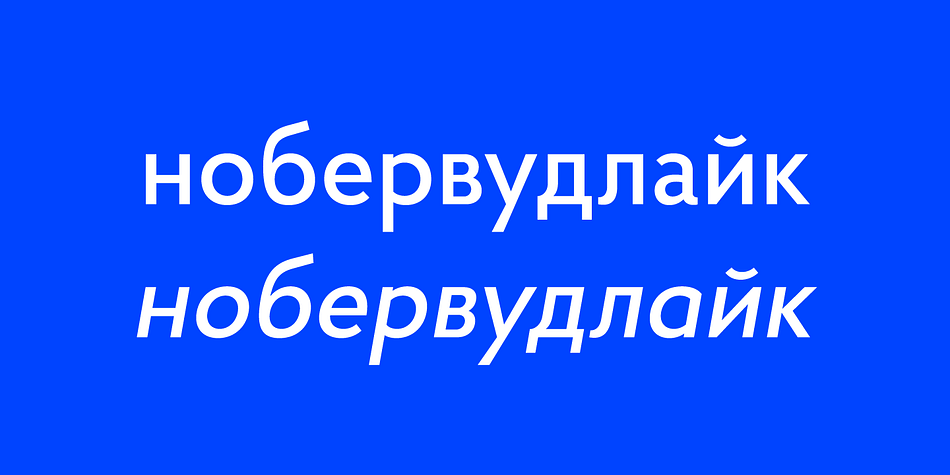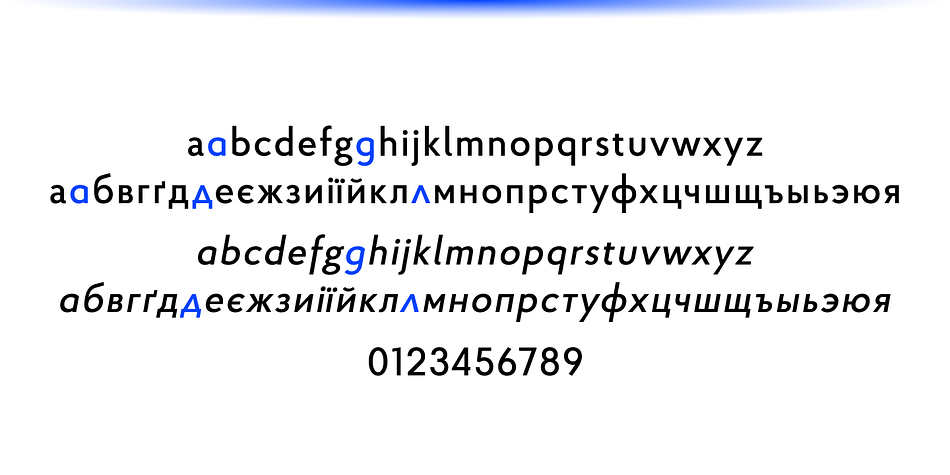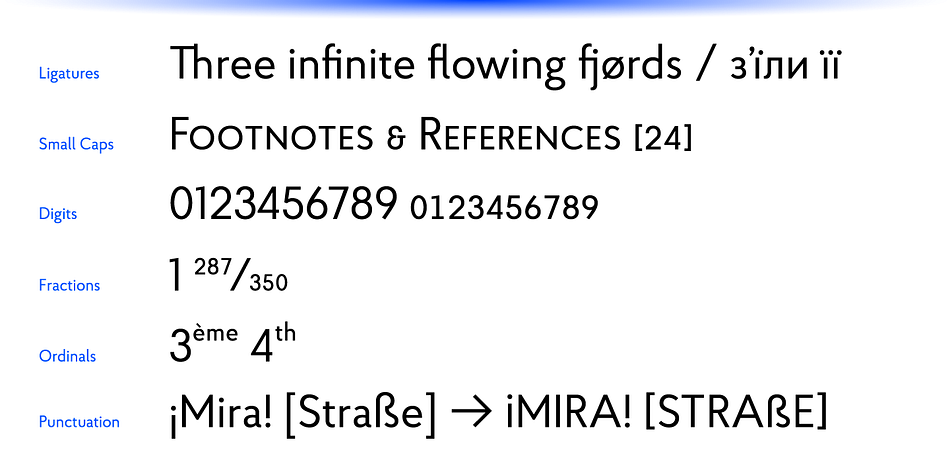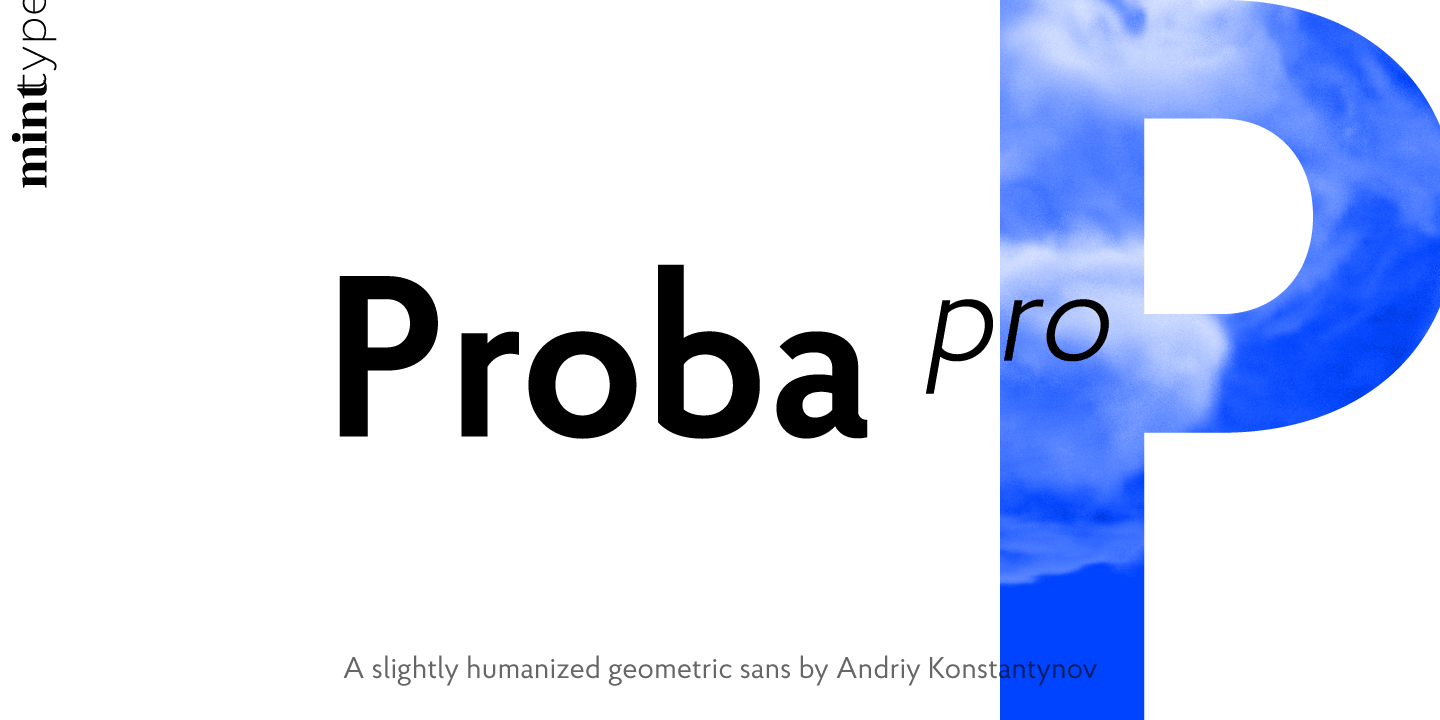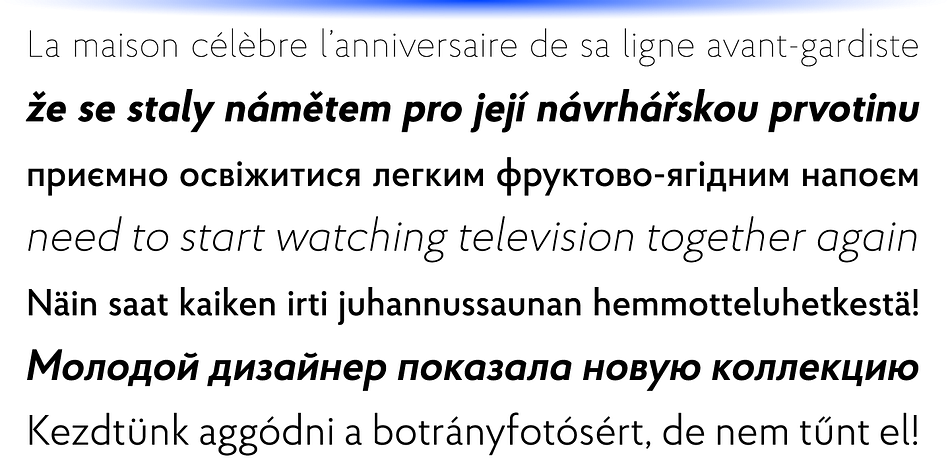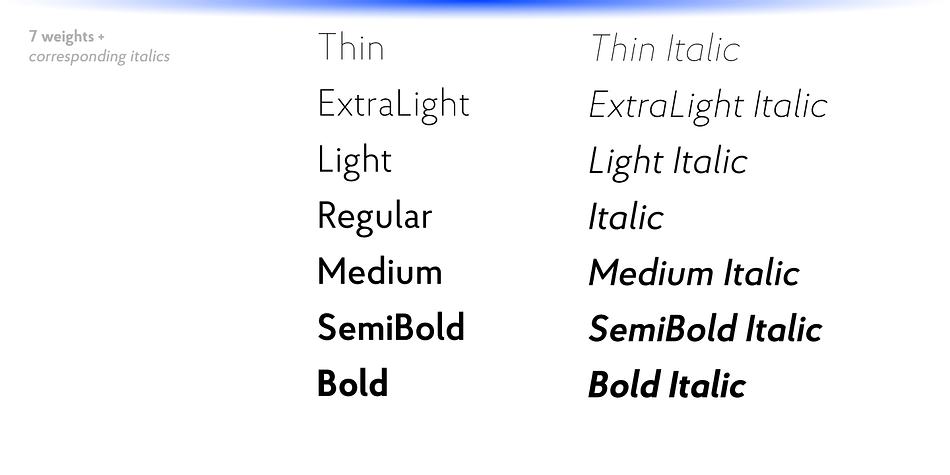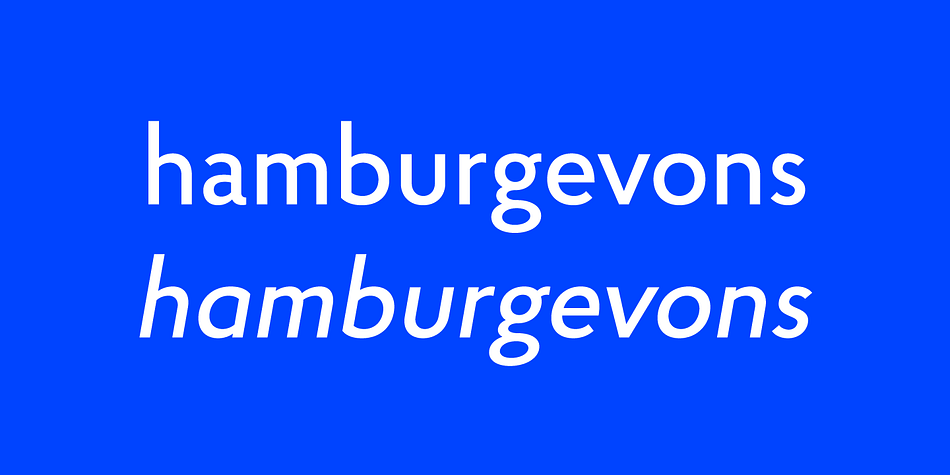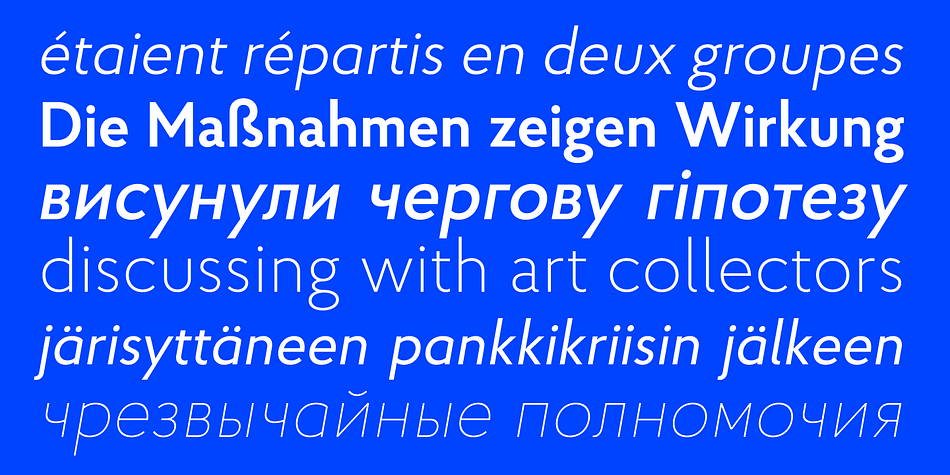
Designed by Andriy Konstantynov, Proba Pro is a sans serif font family. This typeface has fourteen styles and was published by Mint Type.
Proba Pro is a geometric sans with lowered x-height, prominent acsenders and descenders and subtle huminast touch. It comes in 7 weights + matching italics each supporting numerous Latin-based languages as well as major Cyrillic languages.
It is packed with OpenType features like ligatures, small caps, 4 sets of digits, 2 stylistic sets, superiors and inferiors, fractions, ordinals, and respective punctuation varieties including all-cap punctuation. There are also language-specific alternates for Romanian Ș/ș, Catalan punt volat, and correct small-cap versions for i/ı in Turk languages.